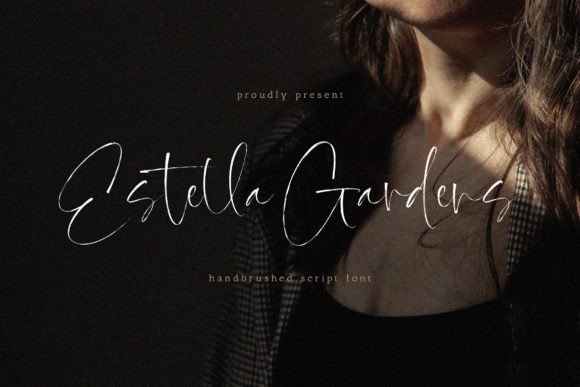
Unlock the Timeless Elegance of Hand-Brushed Script Fonts
Have you ever found yourself sitting at your desk, staring at a blank page, trying to find the perfect words to express your creativity? The blank slate can be intimidating, but it’s in these moments that we discover the true power of typography. The right font can elevate your message, add depth to your design, and speak directly to your audience’s hearts.
That’s where the Estella Gardens Font comes in – a hand-brushed script font that embodies the essence of artisanal craftsmanship and modern sophistication. This beautiful font is designed to add a touch of bespoke charm to your projects, making it a valuable addition to any designer’s toolkit. With its organic lines and graceful curves, the Estella Gardens Font is the perfect choice for anyone looking to create a truly unique and refined visual experience.
Estella Gardens Font Key Features
- Font Style: Elegant script with a touch of whimsy, perfect for invitations, wedding stationery, and other special occasions.
- Unique Characteristics: Features a distinctive, flowing script with a mix of uppercase and lowercase letters, adding a touch of sophistication and elegance to your designs.
Estella Gardens Font Review
I recently had the chance to work with Estella Gardens Font, and I must say it’s a unique and interesting typeface. Here are my thoughts on what works well and what could be improved.
- ✨ Elegant and whimsical design: Estella Gardens Font has a distinct charm that’s perfect for branding or design projects that require a touch of sophistication.
- ✨ Highly customizable: This font offers a range of OpenType features, including swashes, ornaments, and ligatures, making it easy to create unique and personalized designs.
- ✨ Beautiful script font: The script elements of Estella Gardens Font are particularly well-crafted, with a flowing, cursive feel that’s perfect for wedding invitations, quotes, or other handwritten-style designs.
- ⚠️ Limited font weights: Estella Gardens Font only comes in a few weights, which may not be ideal for designs that require a wide range of font weights.
- ⚠️ Not suitable for body text: Due to its ornate and script-like design, Estella Gardens Font is not the best choice for body text or large blocks of text.
Overall, I think Estella Gardens Font is a great choice for designers looking for a unique and elegant typeface. While it may have some limitations, its customizability and beautiful script elements make it a great addition to any design project.
Getting the Most Out of Estella Gardens Font
Use Estella Gardens Font for designs that require a elegant and sophisticated look, such as wedding invitations, luxury branding, and high-end packaging. Experiment with different font sizes, colors, and styles to create unique and visually appealing designs.
Estella Gardens Font is ideal for use in:
- Luxury branding and logos
- High-end packaging and labels
- Formal event invitations and announcements